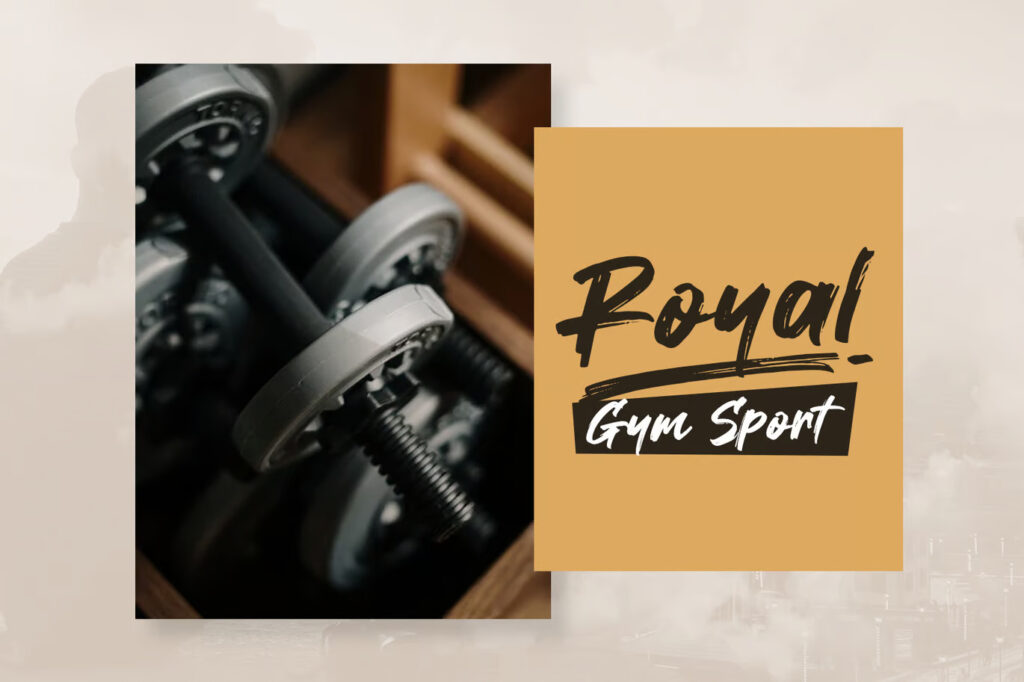
Makebond
Makebond is a fresh brush font that exudes an elegant and modern feel. It features a unique character set that blends artistic style with readability. The font also offers multi-lingual support, making it versatile for various projects.
Makebond Modern Font